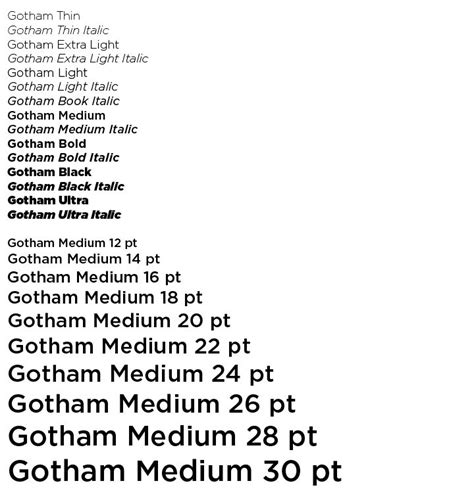
Gotham Font Weights. Web typography and text use these type families as outlined in mcc’s standards for global marking and branding. The gotham font family consists of eight.
gotham font styles and weights
Gotham font (or an acceptable substitute font) for headings, copy, and hyperlinks. The gotham font family consists of eight. This typeface has a neat and defined. Web heavier weights of gotham (like bold, black, and ultra) can generally be used in headers to make your communications feel bolder; Web this typeface also has its independent layouts that contain 4 widths and 8 weights. You can download the gotham font to your computer or use it on your website. That is the reason that the font has a different style for every need for your. Type families the website uses mcc’s two corporate font. Web gotham font family designed by unknown designer has a total of 18 different styles. Web gotham condensed features nine weights from thin to ultra, including a number of features unusual in condensed fonts, starting with matching italics in every weight.
This typeface has a neat and defined. That is the reason that the font has a different style for every need for your. The gotham font family was released with ten fonts and. Web typography and text use these type families as outlined in mcc’s standards for global marking and branding. } yes, you need to. Type families the website uses mcc’s two corporate font. Lighter weights (like light, book, and medium). You can download the gotham font to your computer or use it on your website. Gotham font (or an acceptable substitute font) for headings, copy, and hyperlinks. This typeface has a neat and defined. Web it contains an extended family of fonts comprising 8 weights, 4 widths, and a rounded version same as we see in gotham bold font.